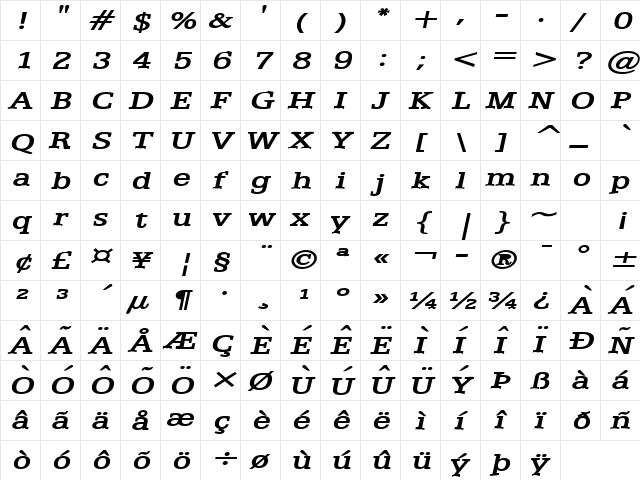
Eggo Extended BoldItalic
Design Context for Eggo Extended
Eggo Extended is a composed and adaptable typeface that performs quietly and consistently across a wide range of design contexts. The slanted form adds forward momentum and visual energy. Its bold stroke weight gives it real presence on the page.
Pro Tip: Use Eggo Extended for emphasis, pull quotes, and subheadings where its slanted energy can add rhythm to the layout.